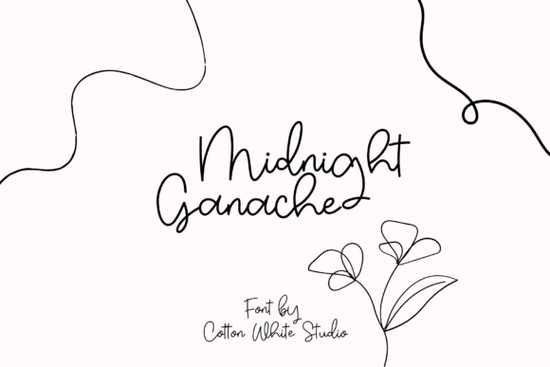
Midnight Ganache is a thin, handwritten script font with a playful, whimsical personality. Its delicate lines and natural letterforms add instant charm to everything from wedding invitations and personalized mugs to children’s book covers and social media graphics. The font feels friendly and approachable without being childish, making it a flexible choice for crafters, small business owners, and print-on-demand sellers who want to soften a design without losing readability.
What makes this thin handwritten script stand out?
Many delicate script fonts either look too formal or tip into messy brush territory. Midnight Ganache walks a careful middle path. The strokes are light and airy, but the letterforms stay consistent enough to read at a glance. You’ll notice organic curves, a slightly bouncy baseline, and open counters that keep the text from feeling cramped. It doesn’t rely on extravagant swashes or heavy texture the charm comes from the restrained, handwritten flow. That gives you a script that feels personal without overwhelming the rest of your layout.
Because the weight is so thin, the font really shines when you use it at larger sizes. In headings, short quotes, or logo-like treatments, the fine lines create an elegant, almost hand‑lettered look. It also works well when you want a gentle human touch for product tags, thank‑you cards, or sticker sheets.
Where can you use Midnight Ganache?
Designers often reach for a font like this when a project calls for warmth and approachability. Here are a few practical places where it fits well:
- Invitations and greeting cards: Use it for names, dates, and heartfelt messages on wedding suites, baby shower invites, or birthday cards.
- Print‑on‑demand products: The thin script prints cleanly on mugs, tote bags, hoodies, and phone cases. Test at smaller sizes for apparel bold text underneath can keep the design readable.
- Children’s products: Nursery wall art, milestone blankets, and label designs benefit from the sweet, whimsical tone.
- Social media graphics: Pair it with a clean sans‑serif for Instagram quote posts, Pinterest pins, or YouTube thumbnails that need a soft, personal feel.
- Branding and packaging: Bakeries, handmade soap labels, and boutique hang tags often use a light script to signal care and craftsmanship.
Is Midnight Ganache easy to read for longer text?
Because the font is quite thin, it’s best reserved for short bursts of text. A full paragraph in Midnight Ganache can strain the eyes, especially on small screens or printed at small sizes. For body copy, pair it with a simple serif or sans‑serif. The script works beautifully as the headline or accent, while a clean secondary font handles the details. This contrast also highlights the delicate nature of the script, making it feel more intentional.
If you do use it for a short quote or a call‑to‑action, bump up the size and add a bit of letter‑spacing. This helps the fine strokes breathe and keeps the message clear.
What fonts pair well with Midnight Ganache?
Because Midnight Ganache is airy and thin, it plays nicely with fonts that bring a solid, grounded presence. A simple geometric sans‑serif like Montserrat or a neutral serif such as Cormorant creates a clean contrast. For a family‑friendly feel, you could combine it with other script fonts that share a casual, hand‑drawn spirit.
If you enjoy the playful mood but need a heavier script, Sweet Hearts offers a similar friendly character with thicker strokes that hold up better on busy backgrounds. For a chunkier, party‑ready style, No Naps Required Party trades the thin lines for bold, bouncy shapes that work great on kids’ birthday designs. If you want monoline elegance with a more formal edge, Darling Signature keeps the delicate look but adds refined connections. Designers who love modern calligraphy often add Swearly for its varied bounce and energetic baseline. And when a project calls for pure cuteness, Babie delivers rounded, friendly letters perfect for baby‑themed crafts and nursery decor. Each of these fonts can sit alongside Midnight Ganache in a font family lineup or serve as an alternative when you need a different weight or personality.